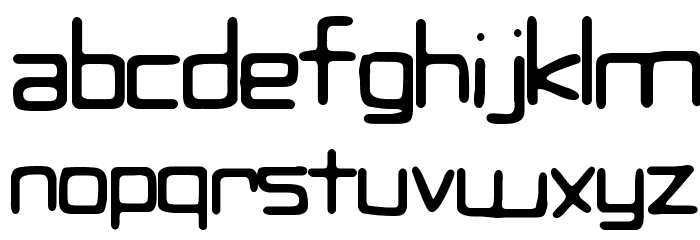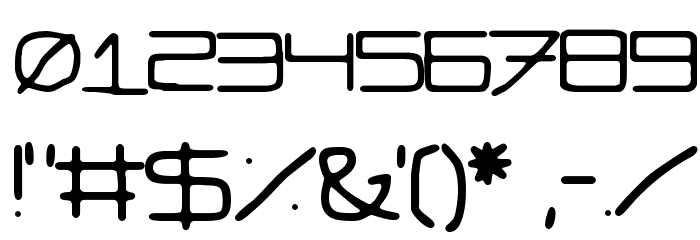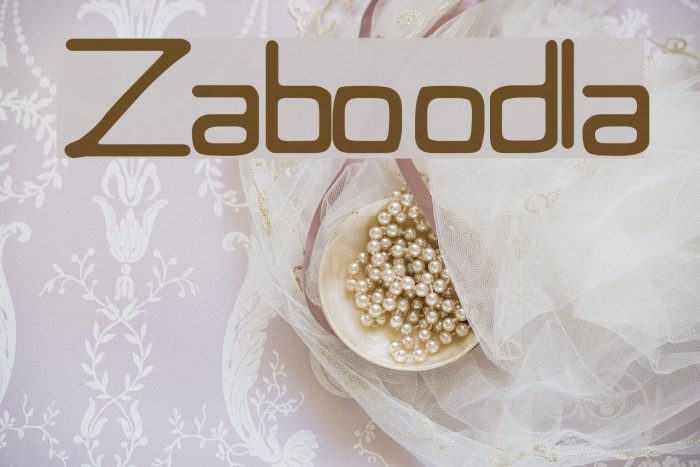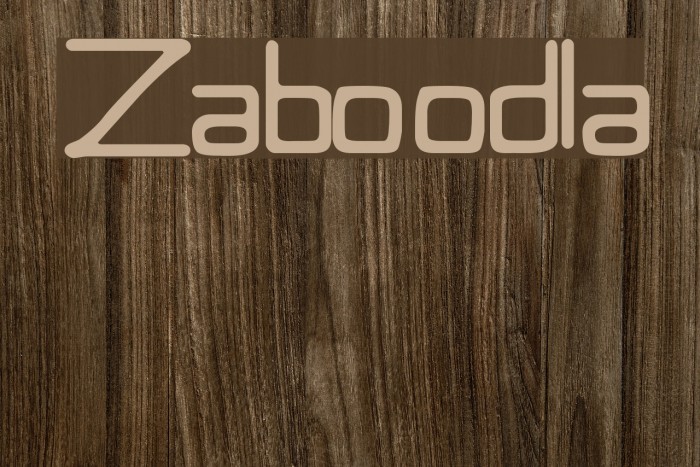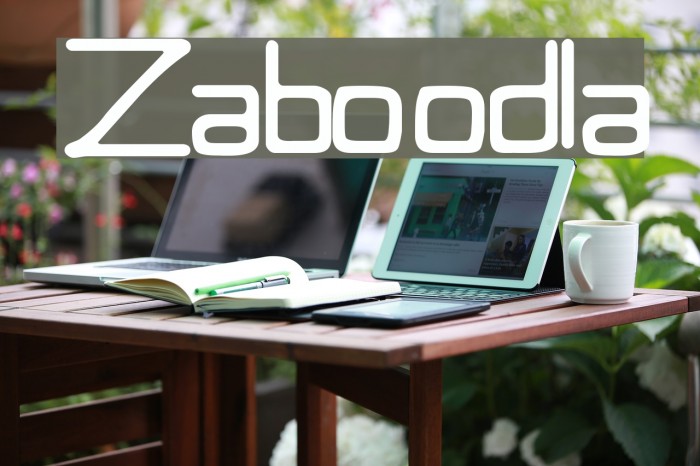
Zaboodla Font
This font features a modern, geometric design with a unique blend of rounded and angular elements. The uppercase letters are characterized by their elongated, rectangular shapes with rounded corners, giving them a futuristic appearance. The lowercase letters maintain a consistent style, with a slightly more compact form. Numbers and special characters follow the same design principles, ensuring uniformity across all glyphs. The overall look is clean and minimalistic, making it suitable for contemporary design projects. The font's distinct style is both eye-catching and versatile, allowing it to be used in a variety of contexts.
A modern, geometric font with rounded and angular elements, ideal for contemporary designs.
- Font: Zaboodla
- Proposed Projects: Perfect for tech-related branding, modern advertising, digital interfaces, and futuristic-themed projects.
- Use Case: Headlines, Logos, Digital Interfaces